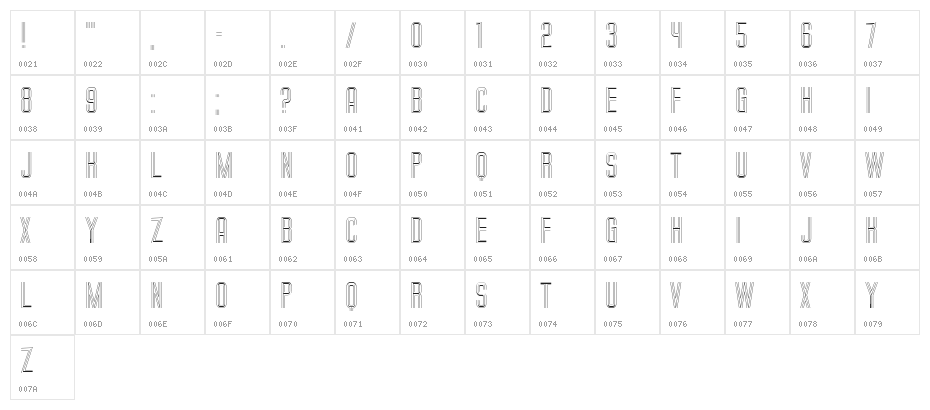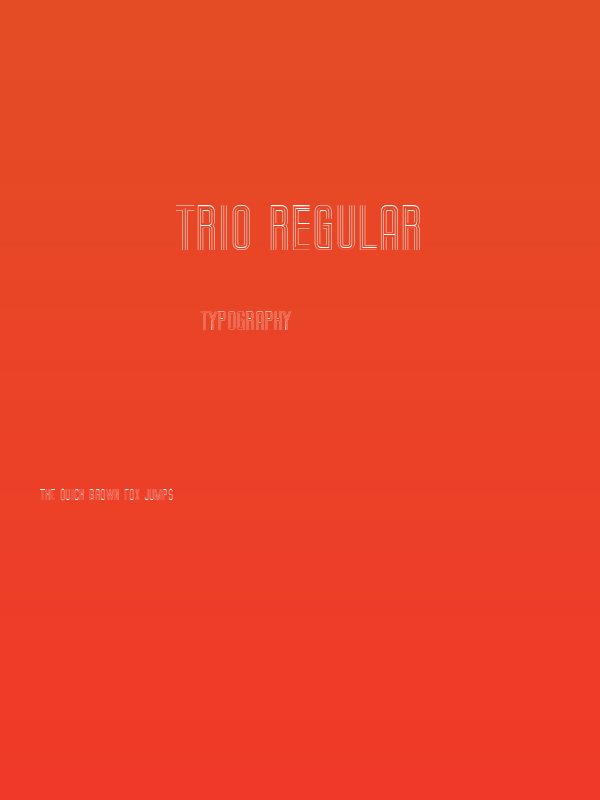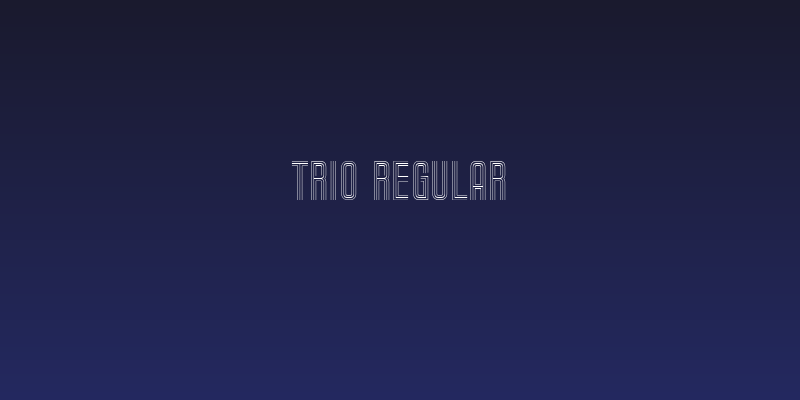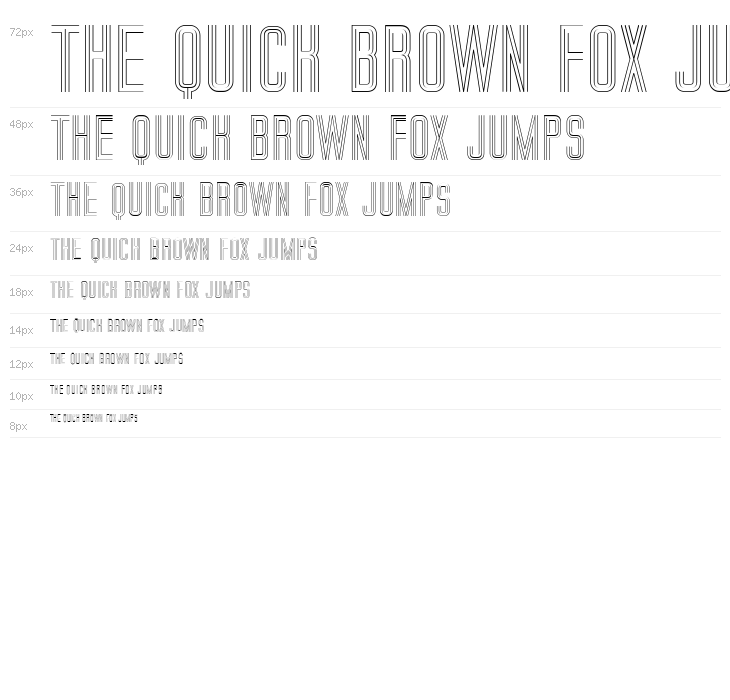
Trio Regular Font
Trio Regular Description
This font features a unique, decorative style with a triple-line design for each character, creating a sense of depth and intricacy. The uppercase and lowercase letters maintain a consistent geometric structure, with clean, straight lines and sharp angles. The numerals and special characters follow the same pattern, ensuring uniformity across all elements. This font's distinct appearance makes it stand out, offering a modern yet artistic flair. Its precise line work and symmetrical form give it a sophisticated and polished look, suitable for various creative applications.